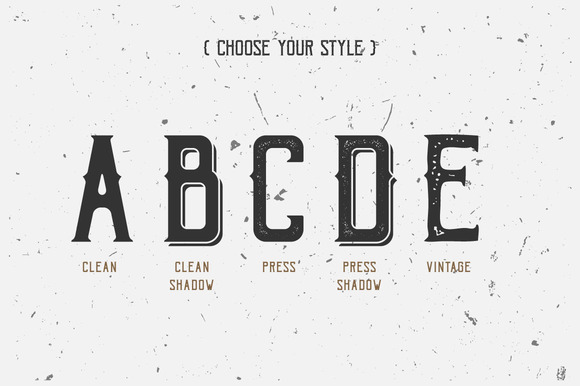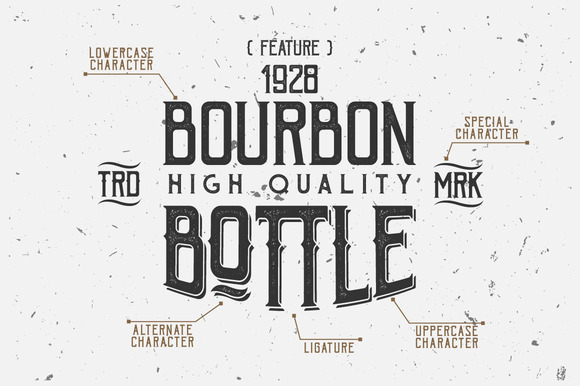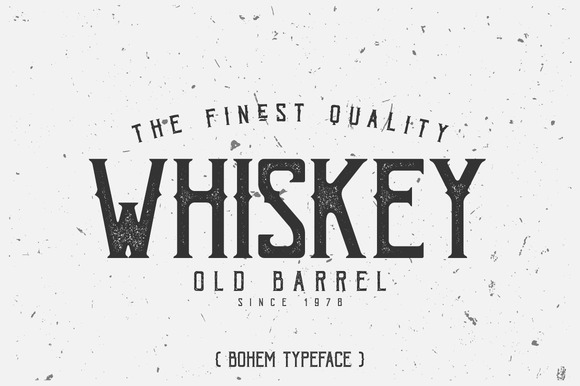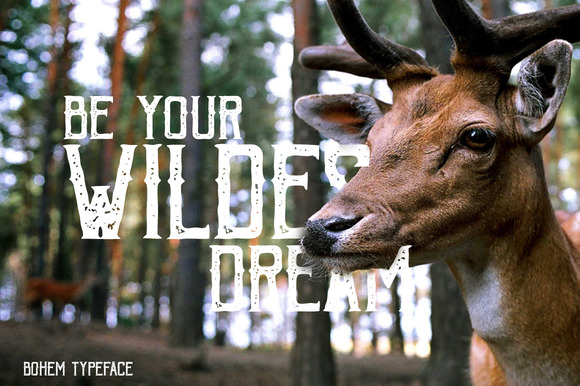
Introducing the Bohem Font: A Vintage-Inspired Typeface for Authentic Designs
Are you a designer or crafter looking for a font that can add a touch of authenticity to your projects? Look no further than the Bohem Font, a stunning typeface inspired by vintage beer and brewery labels. The Bohem Typeface Font Family is a versatile collection of five fonts that can elevate your designs and give them a unique, nostalgic feel.
The Bohem Typeface Font Family: 5 Stunning Fonts
The Bohem Typeface Font Family consists of five beautiful fonts, each with its own distinct character:
- Bohem Clean (Regular): A clean and crisp font perfect for designs that require a straightforward, vintage look.
- Bohem Shadow: A font with a subtle shadow effect, adding depth and dimension to your designs.
- Bohem Press: A font with a distressed, pressed effect, giving your designs a worn, vintage feel.
- Bohem Shadow Press: A font that combines the shadow effect with a distressed, pressed look, creating a unique and eye-catching design element.
- Bohem Vintage: A font that embodies the spirit of vintage beer and brewery labels, with a distressed, worn look that’s perfect for creating authentic designs.
Key Features of the Bohem Font
The Bohem Font is designed to provide you with a wide range of creative possibilities. Some of its key features include:
- Uppercase & Lowercase Characters: The font includes both uppercase and lowercase characters, allowing you to create designs with a natural flow.
- Punctuation and Numbers: The font includes a range of punctuation marks and numbers, making it suitable for a variety of design projects.
- Multilingual Support: The Bohem Font supports multiple languages, making it a great choice for designers who work with international clients or want to create designs for a global audience.
- Alternate Characters: The font includes alternate characters, giving you more creative freedom and flexibility when designing.
- Ligatures: The Bohem Font features ligatures, which can help to create a more natural, fluid look in your designs.
- Special Character Support: The font includes support for special characters, allowing you to add unique and creative elements to your designs.
Why Choose the Bohem Font?
So why should you choose the Bohem Font for your design projects? Here are just a few reasons:
- Authentic Vintage Look: The Bohem Font is inspired by vintage beer and brewery labels, giving your designs an authentic, nostalgic feel.
- Versatility: The font family includes five different fonts, each with its own unique character, allowing you to choose the perfect font for your design project.
- Multilingual Support: The font’s multilingual support makes it a great choice for designers who work with international clients or want to create designs for a global audience.
The Bohem Font is perfect for designers and crafters who want to add a touch of authenticity to their projects. Whether you’re designing:
- Labels and Packaging: The Bohem Font is ideal for creating labels and packaging with a vintage, nostalgic feel.
- Signs and Posters: The font’s distressed, worn look makes it perfect for creating signs and posters with a unique, eye-catching design.
- Branding and Logo Design: The Bohem Font can help to create a unique and memorable brand identity with its authentic, vintage look.
In conclusion, the Bohem Font is a versatile and authentic typeface that’s perfect for designers and crafters looking to add a touch of nostalgia to their projects. With its five stunning fonts, multilingual support, and range of creative features, the Bohem Font is an excellent choice for any design project.